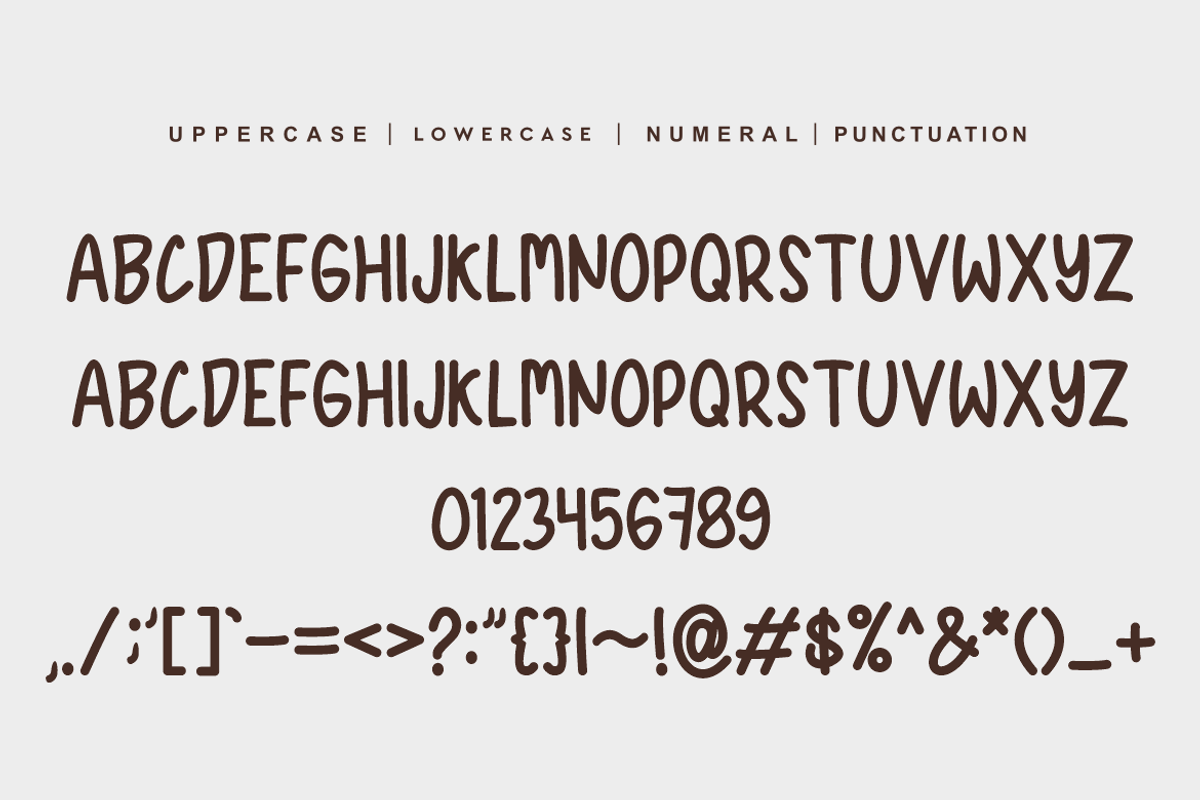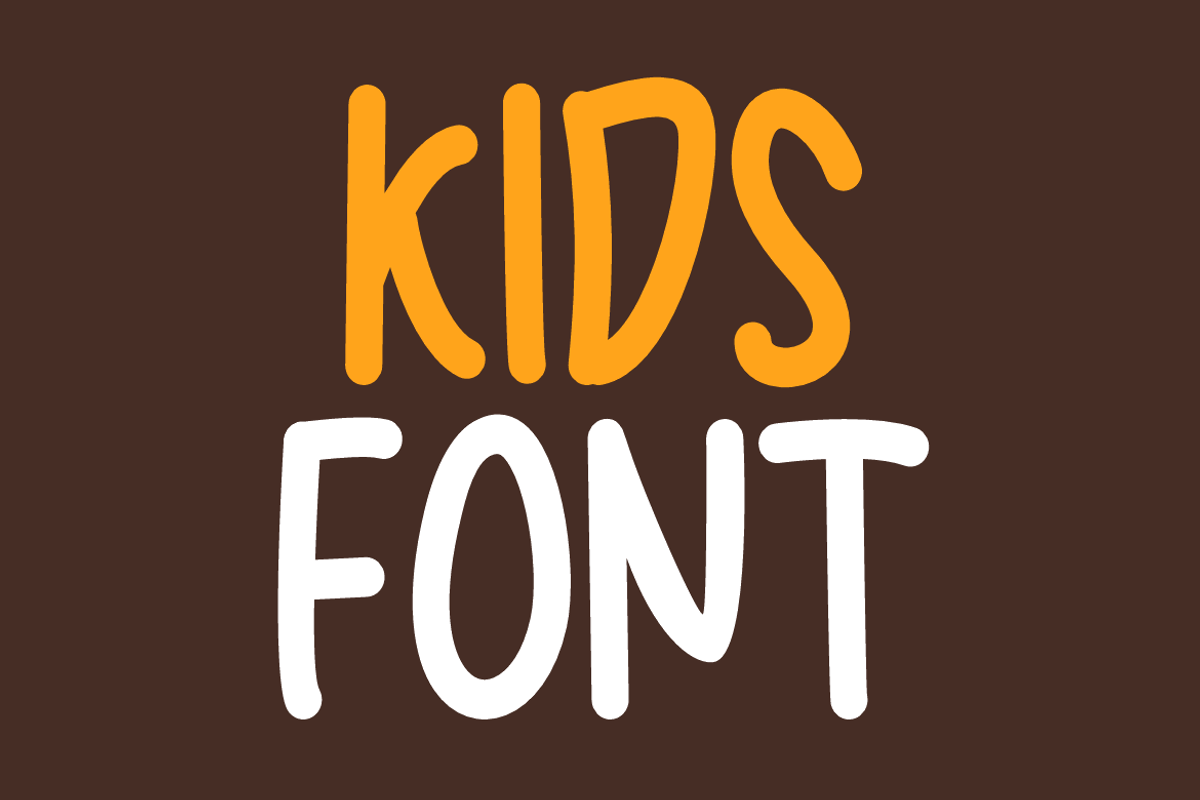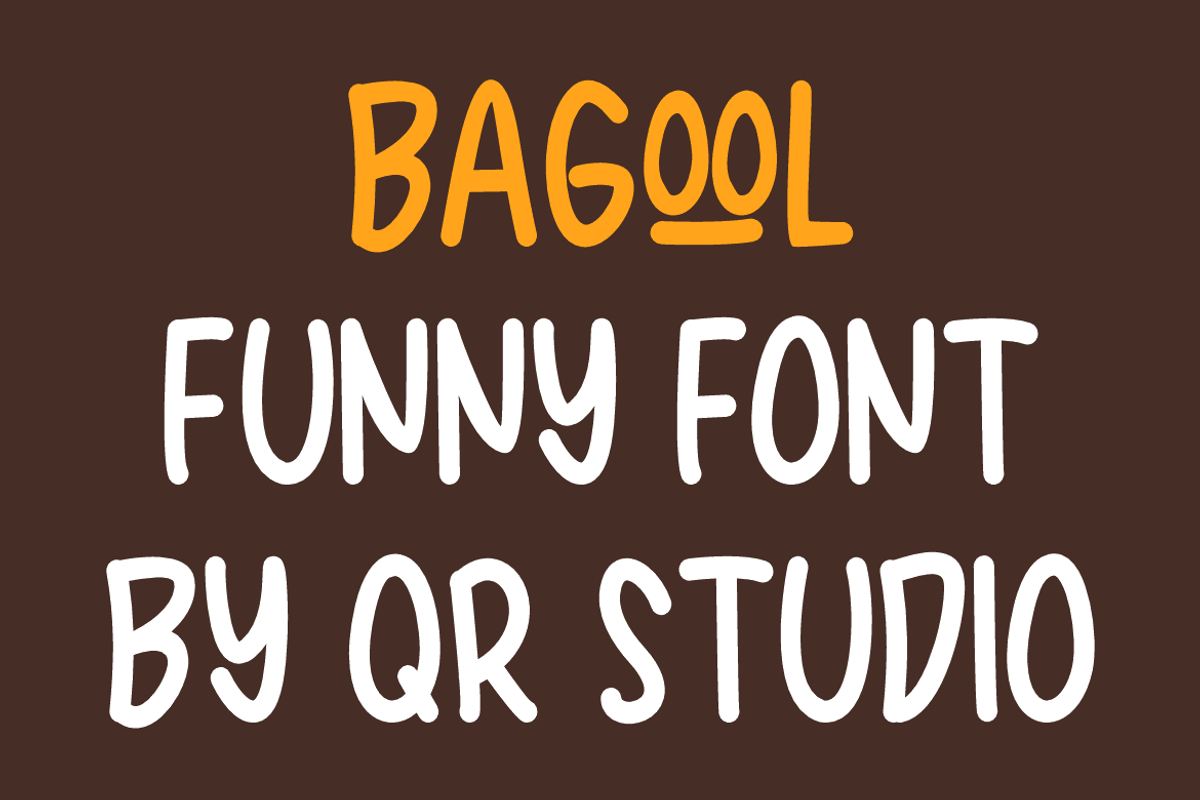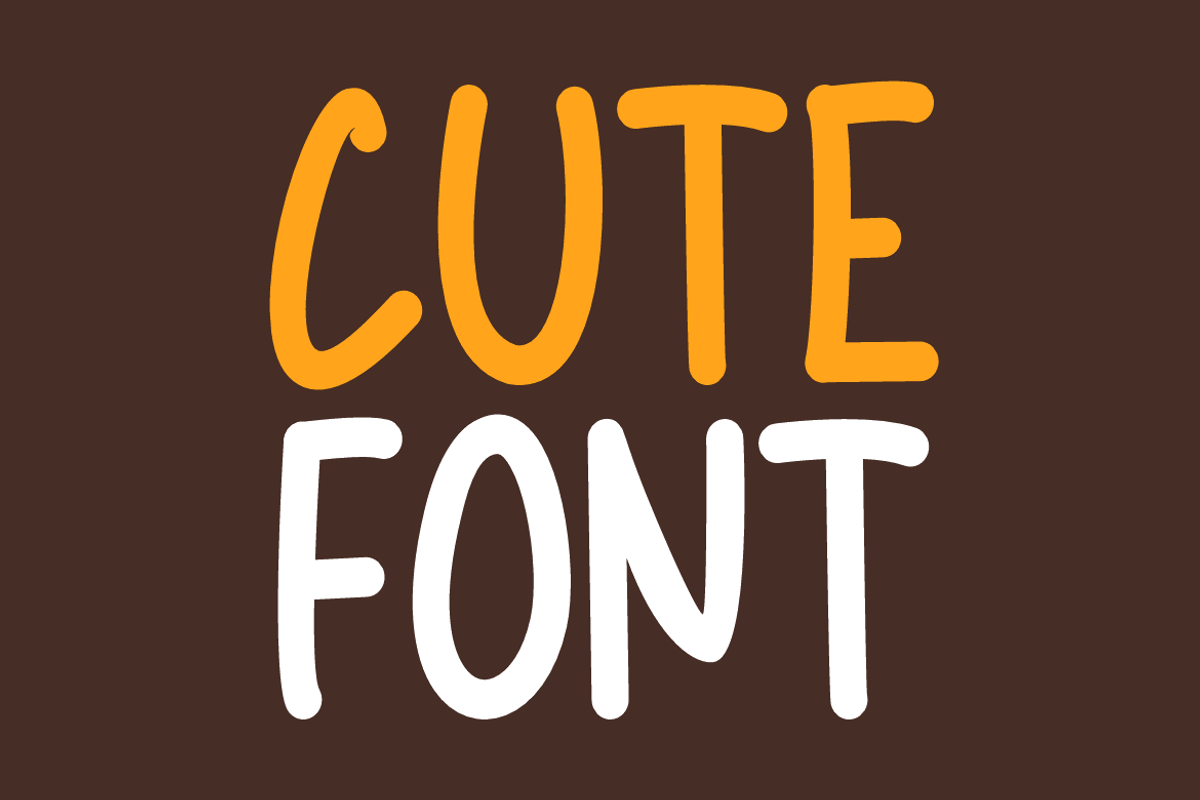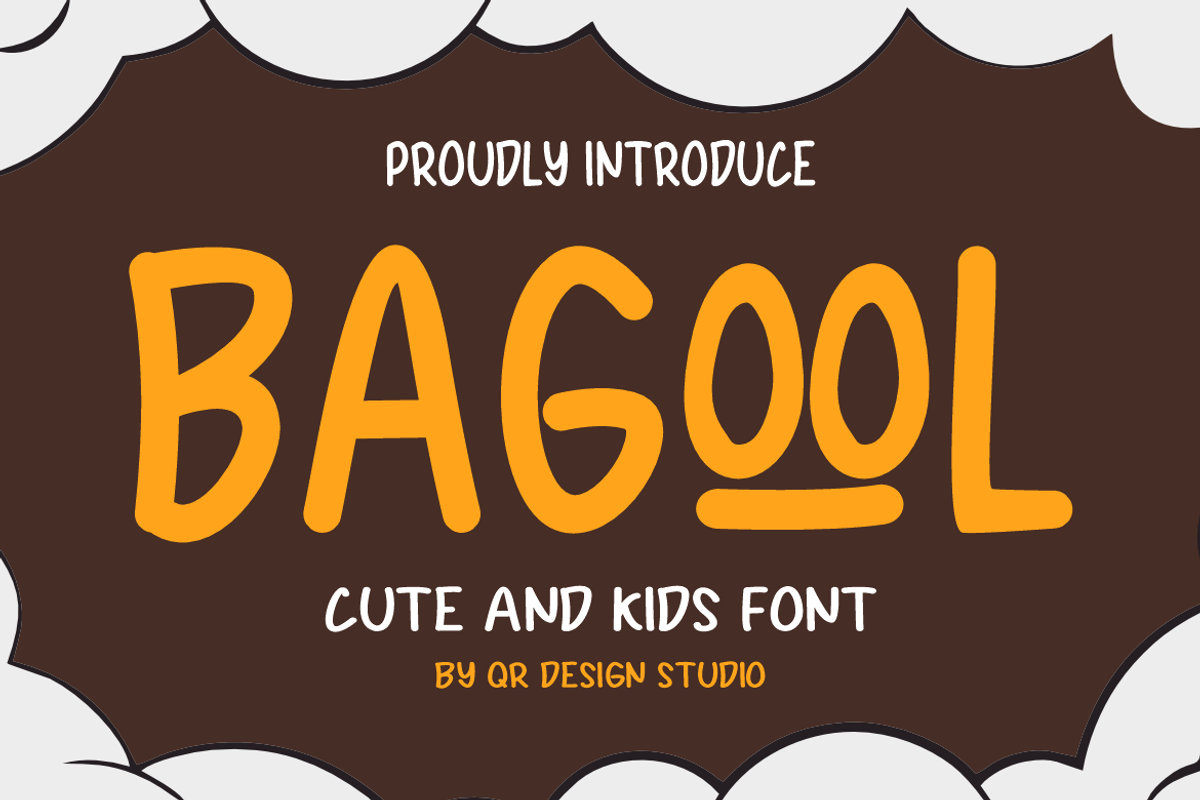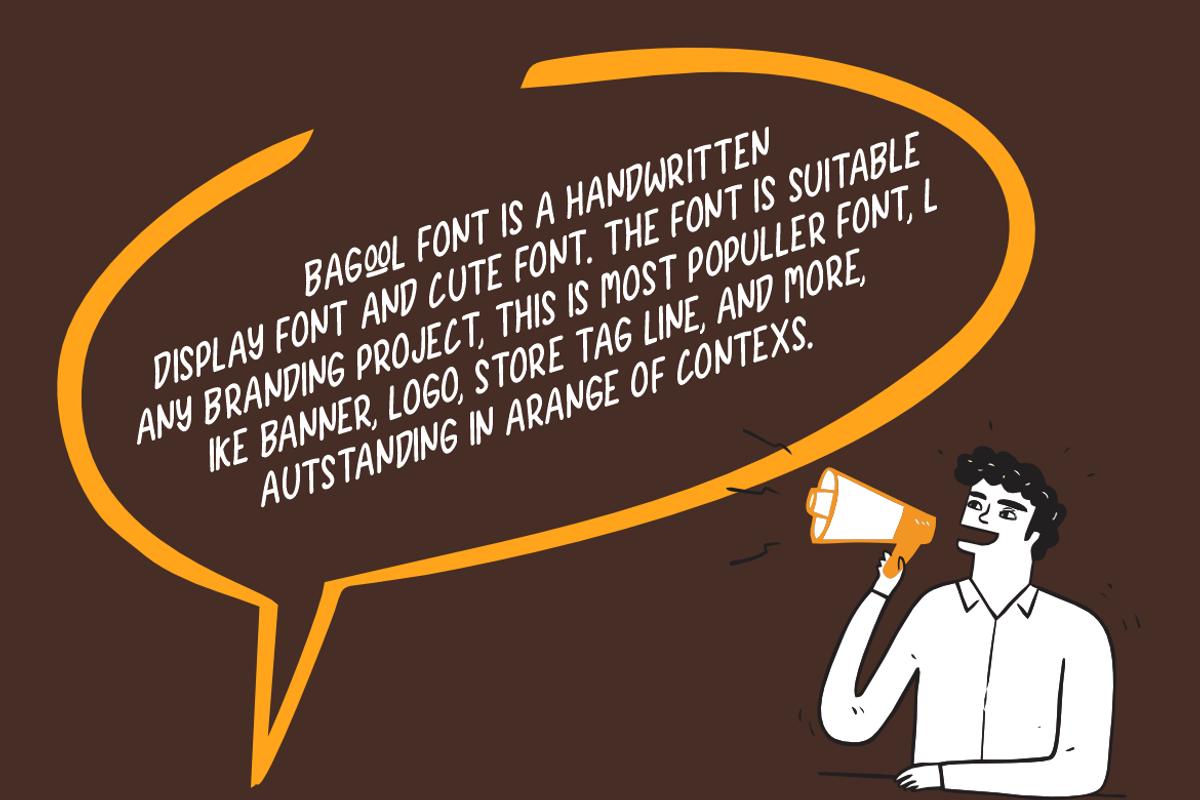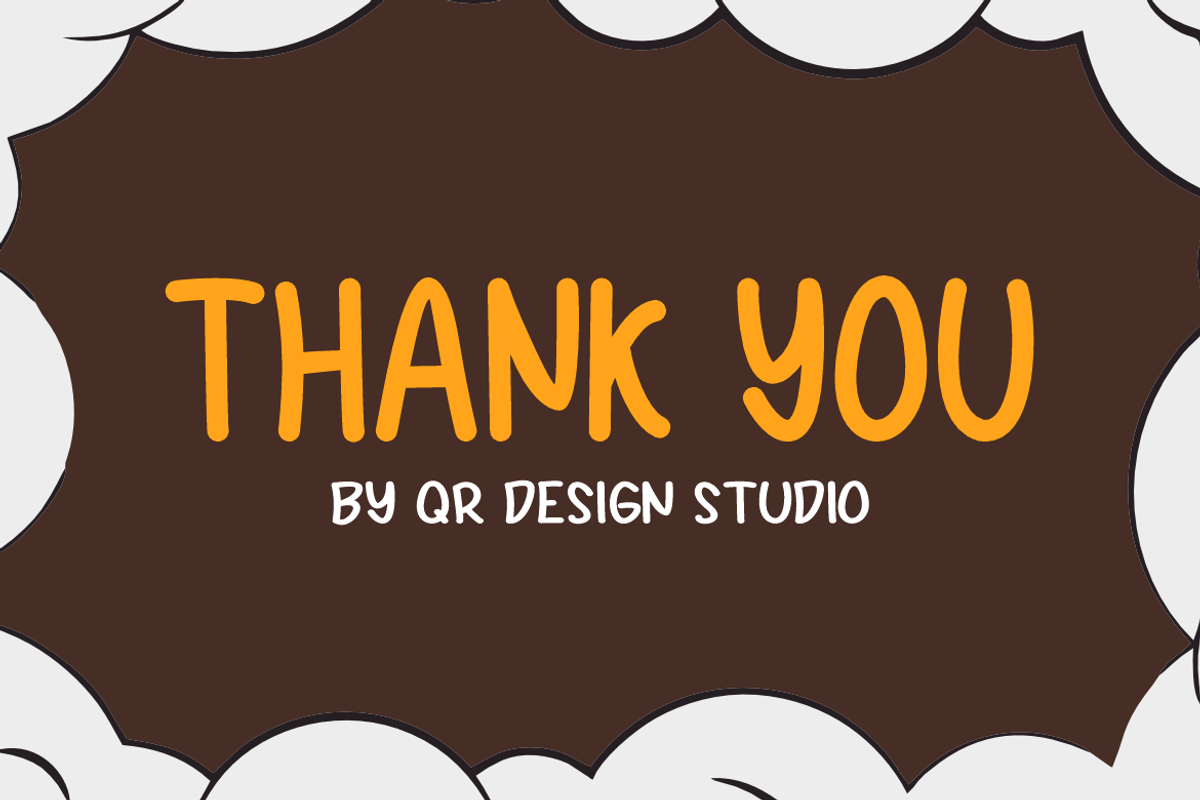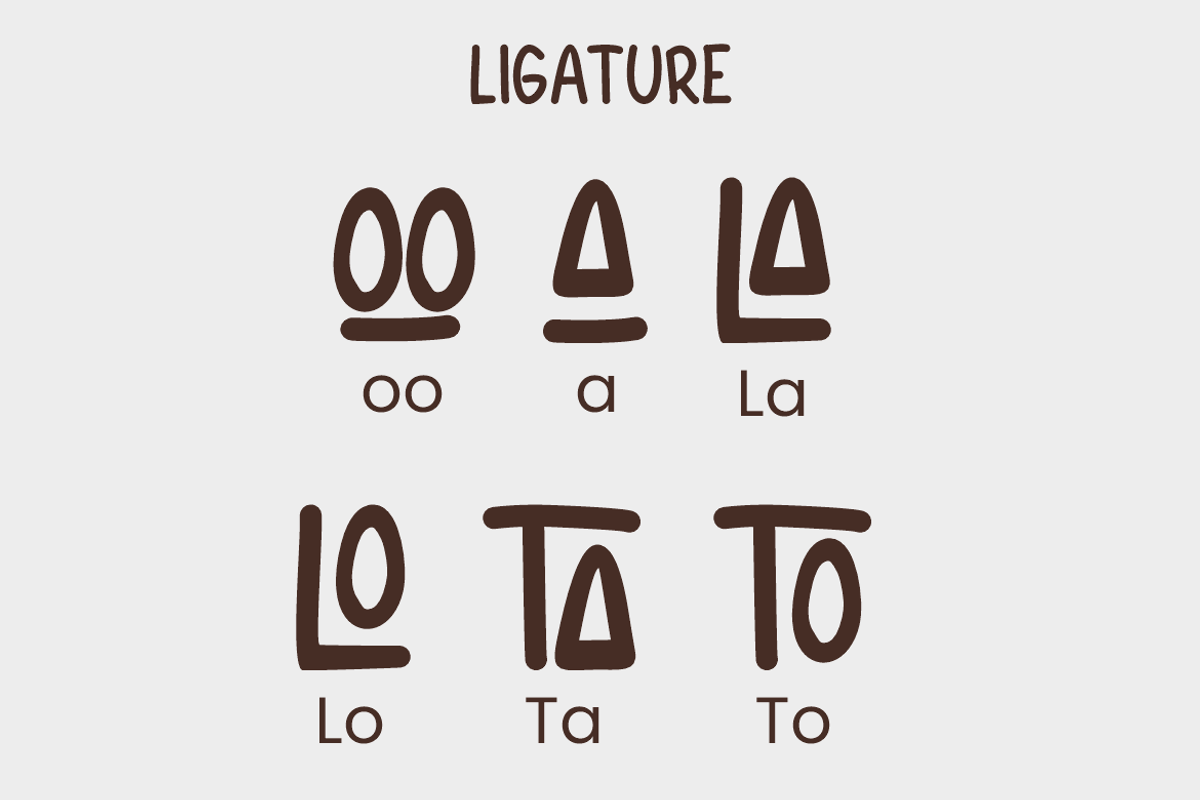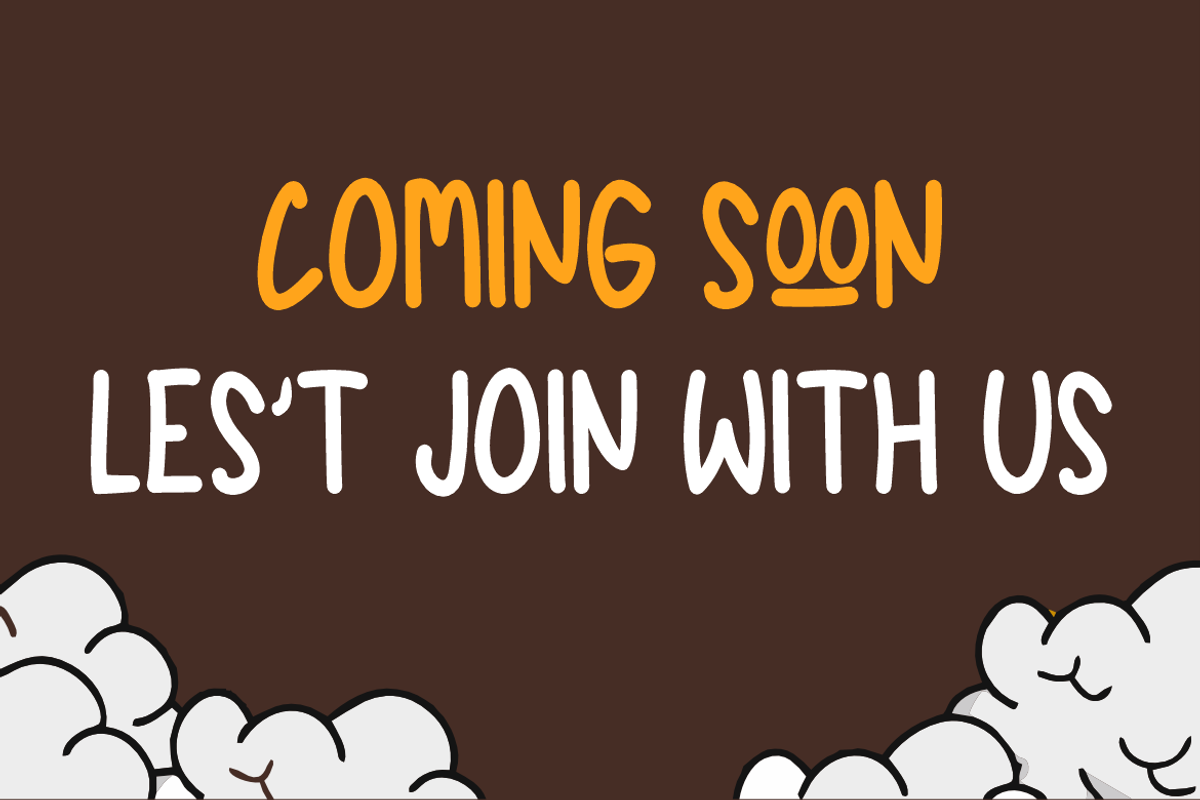
Bagool - Kids Font
Bagool - Kids Font is a bold and authentic display font. The font is suitable for any branding project like logo, food, poster, kids, product, sport, and many more. Outstanding in a wide range of contexts.